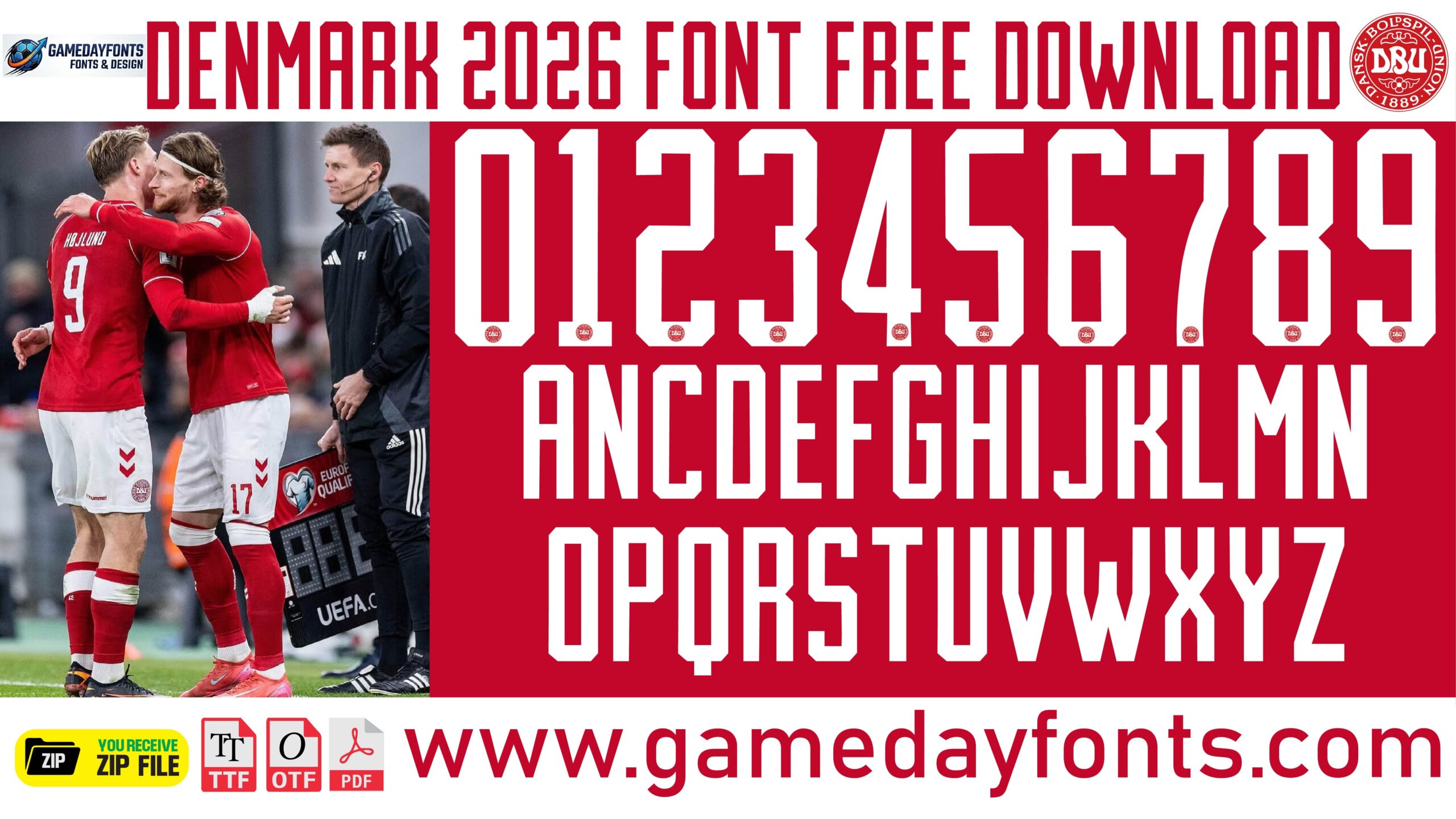
Denmark 2026 World Cup Jersey Font
Denmark 2026 World Cup Jersey Font –inspired typeface crafted with bold geometry and refined precision. Designed to deliver a clean, professional sports aesthetic, it’s perfect for jersey concepts, editorial graphics, and high-impact fan creations.
​Download the high-quality typography inspired by the Danish National Team’s 2026 kit. This bold, geometric font is perfect for jersey mockups, sports posters, and fan art. Designed for precision and a professional sports look.
​Complete Set: Includes uppercase letters (A-Z) and numbers (0-9).
​Authentic Vibes: Features the DBU federation-style logo placement.